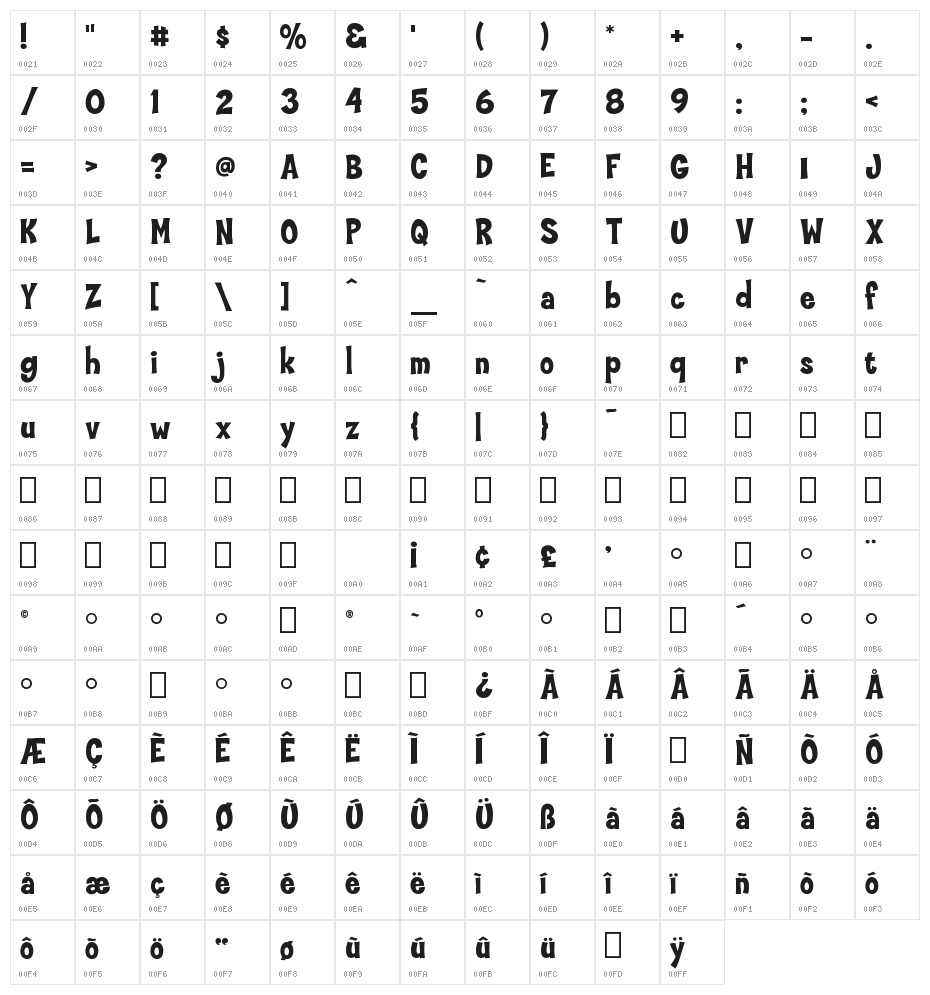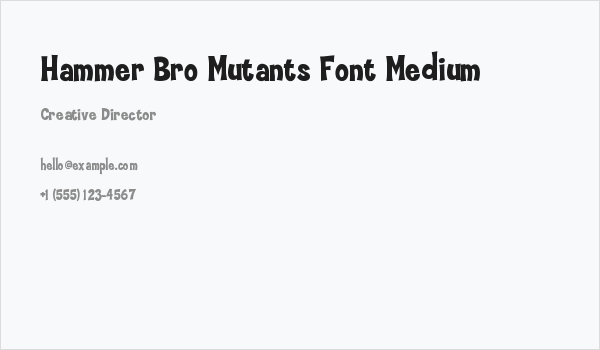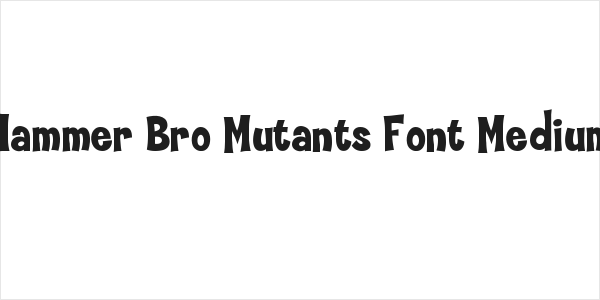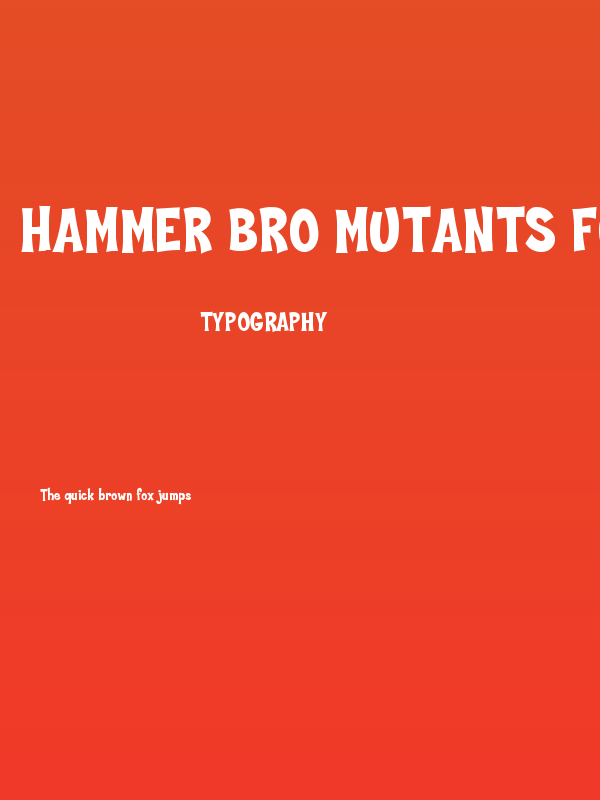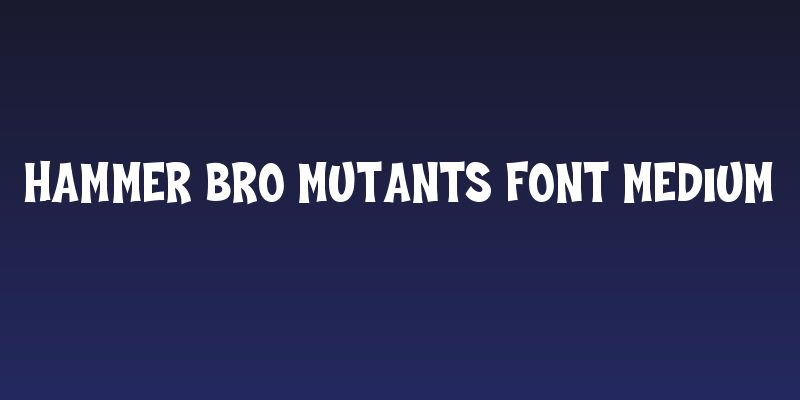
Hammer Bro Mutants Font Medium Font
Hammer Bro Mutants Font Medium Description
This font features a bold and playful design with exaggerated curves and a slightly irregular shape, giving it a whimsical and dynamic appearance. The uppercase letters are robust and commanding, while the lowercase letters maintain a consistent style with a touch of quirkiness. The numbers are bold and easily readable, complementing the overall style. Special characters are creatively designed, adding to the font's unique personality. The font's thick strokes and rounded edges make it stand out, ideal for projects that require a fun and engaging visual impact.
| Overall Style | Playful, Whimsical, Bold |
| Use Case | Headlines, Posters, Branding |
| Proposed Projects | Ideal for children's books, comic strips, playful branding, and eye-catching posters. |